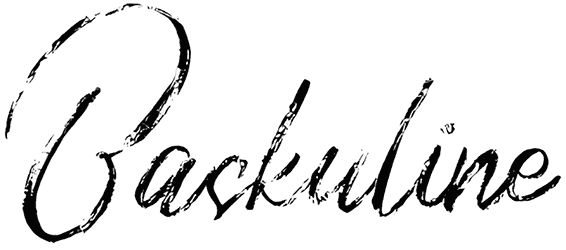
Baskuline Font
Baskuline is a script brush font that can be used to make a wide range of designs, such as flyers, invitations, clothes, and decorations.
It is highly possible that this delicate font was chosen purposely to provoke a more trustworthy response from the audience, despite the fact that it is just slightly difficult to read. A wide variety of handcrafted fonts, including Baskuline, are available for instant download and installation via RB.